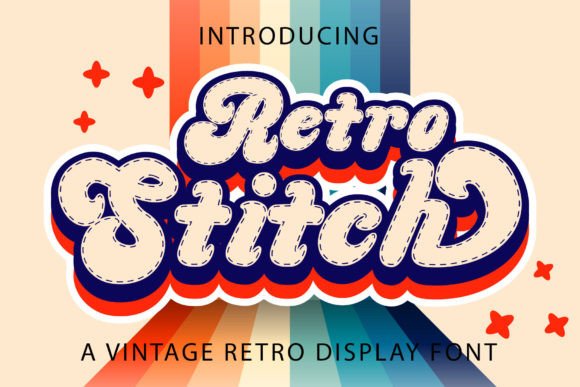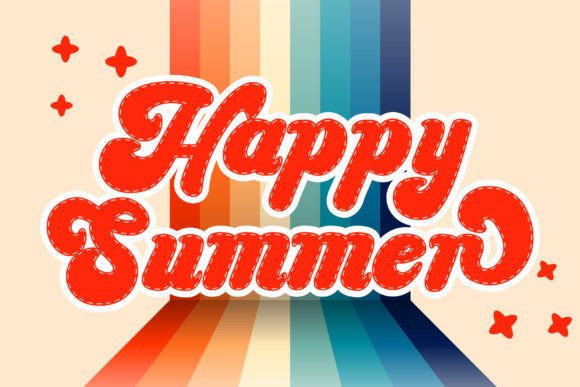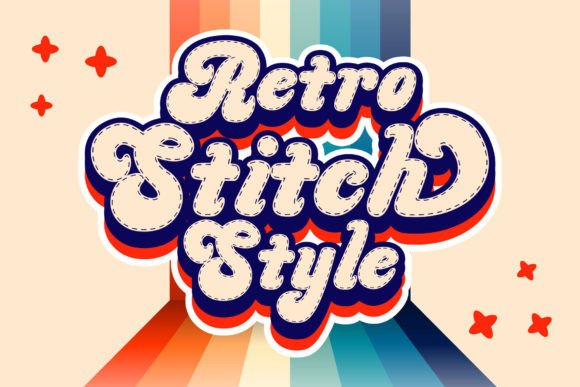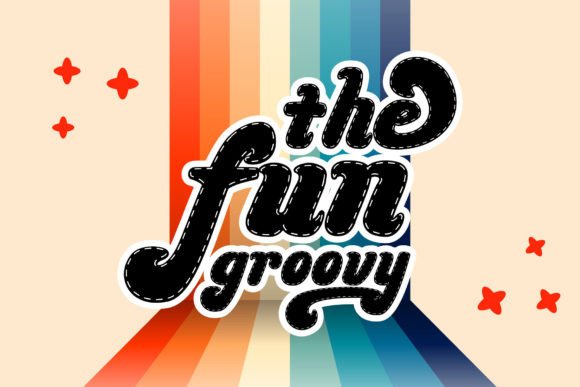
Retro Stitch Font: A Groovy Display Font for Vintage Designs!
About the Retro Stitch Font
Explore the possibilities with Retro Stitch Font, a font that offers both beauty and functionality. Retro Stitch is a cool, vintage-style display font. Use it to add that special retro touch to any design idea! It can be used for logos, branding, invitations, stationery, wedding designs, social media posts, and much more!
Retro Stitch’s strong, playful character makes it ideal for headlines, short text blocks on posters, and branding elements where a vintage aesthetic is desired. It excels in creating eye-catching logos and packaging for products targeting a younger, retro-minded demographic. However, its decorative nature makes it unsuitable for body text or UI elements requiring high readability. Avoid using it for lengthy paragraphs or situations needing subtle elegance.
Pairing Retro Stitch effectively requires considering its bold, slightly quirky personality. A clean sans-serif like Montserrat or Open Sans provides a solid, modern counterpoint, balancing the font’s vintage charm. For a more playful feel, a rounded geometric sans-serif such as Bebas Neue could be used. Alternatively, a classic serif like Garamond could add a touch of sophistication for more refined applications.
The font’s overall personality is best described as bold and playful, with a distinct vintage appeal. It works exceptionally well for brands aiming for a nostalgic yet contemporary feel, effectively communicating a sense of fun and approachability.
Retro Stitch Font Usage Examples
Retro Stitch Font Example